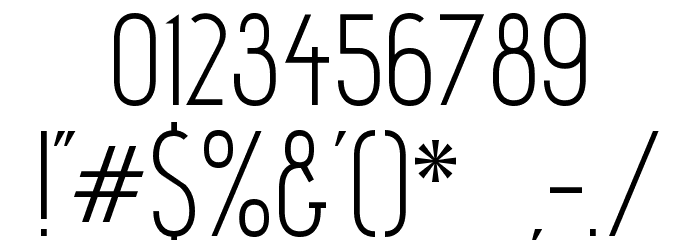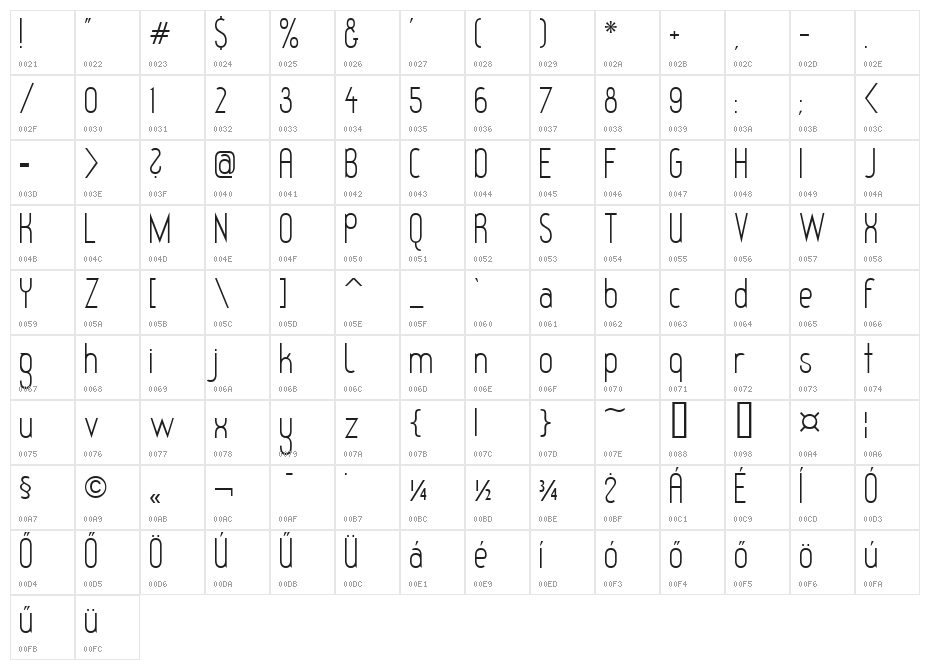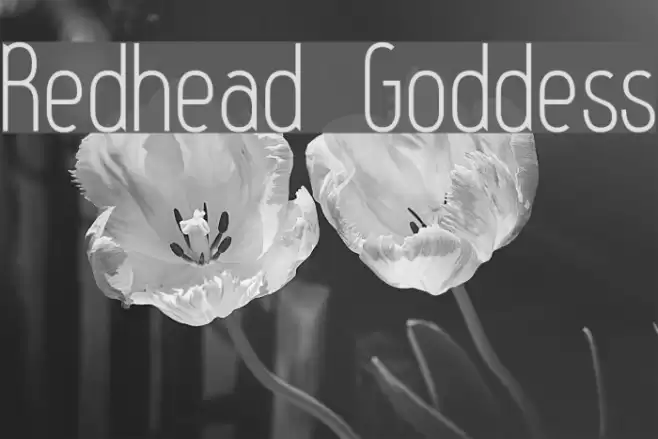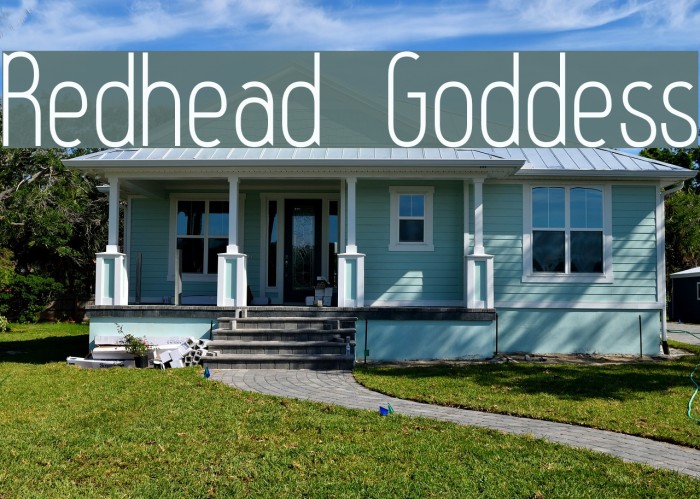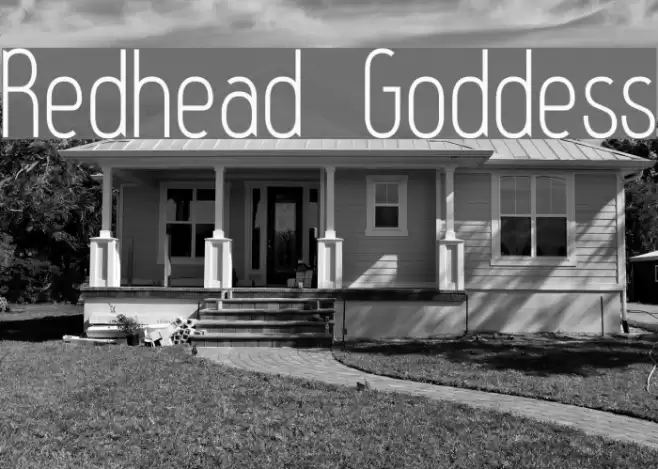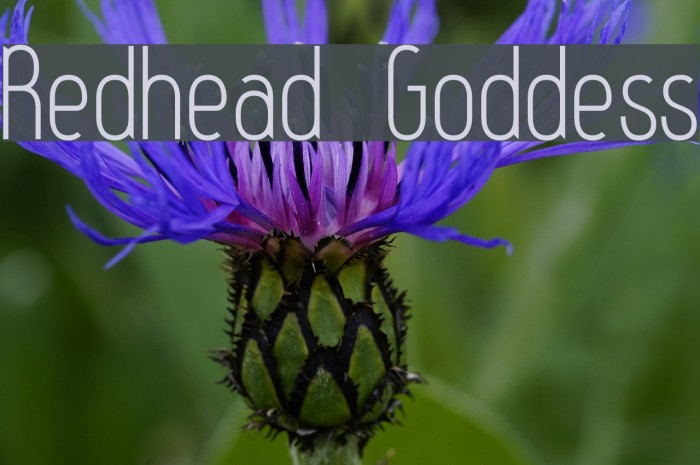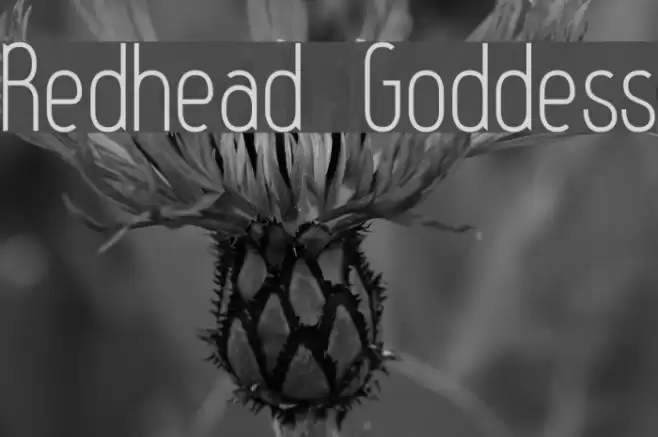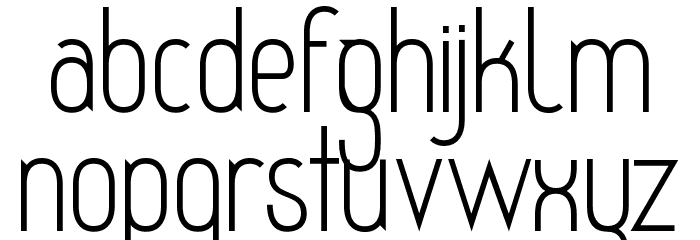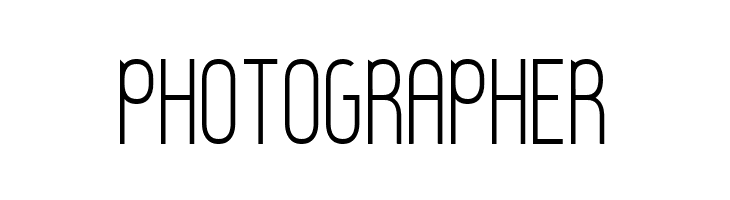
Redhead Goddess Font
Redhead Goddess Description
This font features a sleek and modern design with elongated, narrow characters that convey a sense of elegance and sophistication. The uppercase letters are tall and uniform, while the lowercase letters maintain a consistent height, creating a harmonious balance. The numerals are clear and easily distinguishable, matching the overall aesthetic of the alphabet. Special characters are well-integrated, maintaining the font's clean lines and minimalist style. The thin strokes and uniform width give it a contemporary feel, making it suitable for a variety of design applications.
| Proposed Projects | Ideal for branding, editorial design, fashion magazines, and modern web design. |